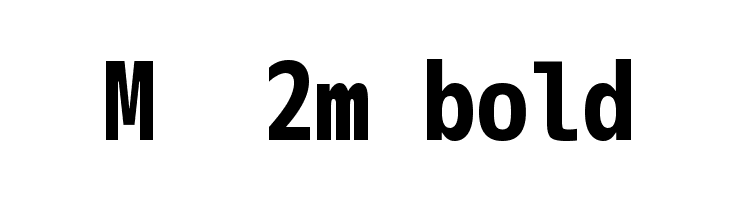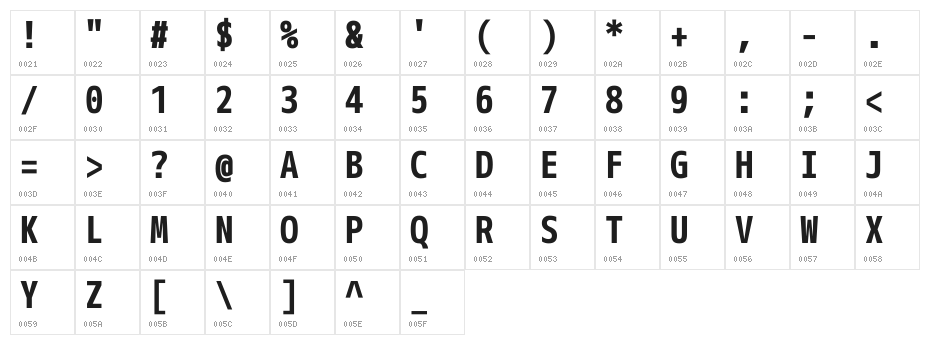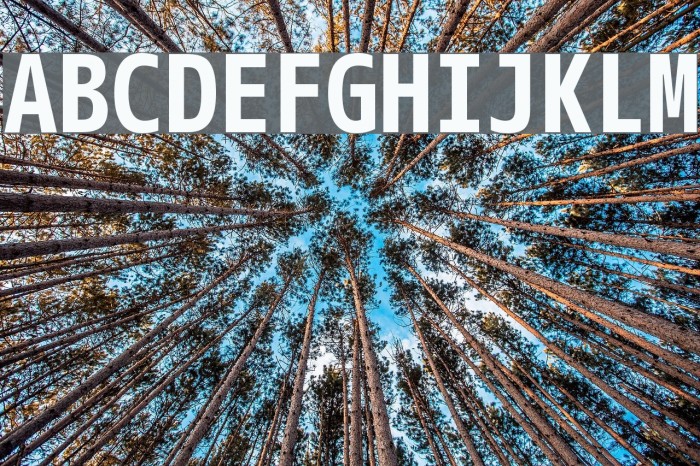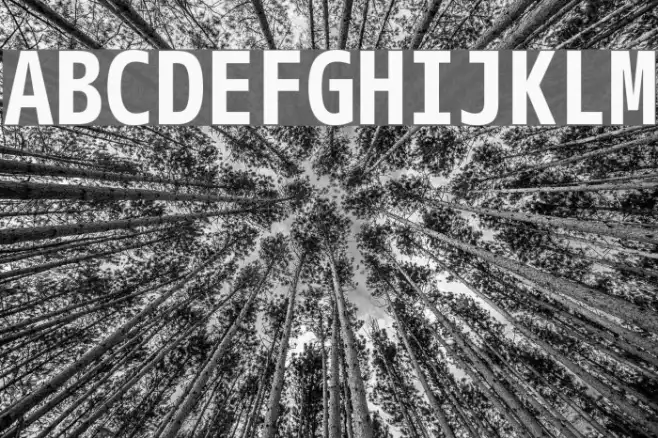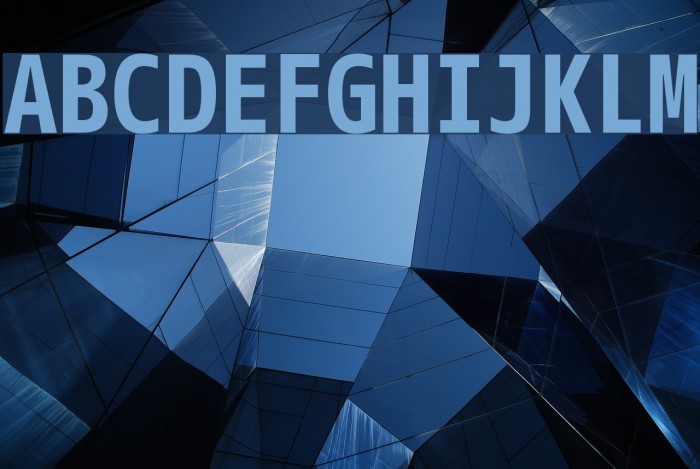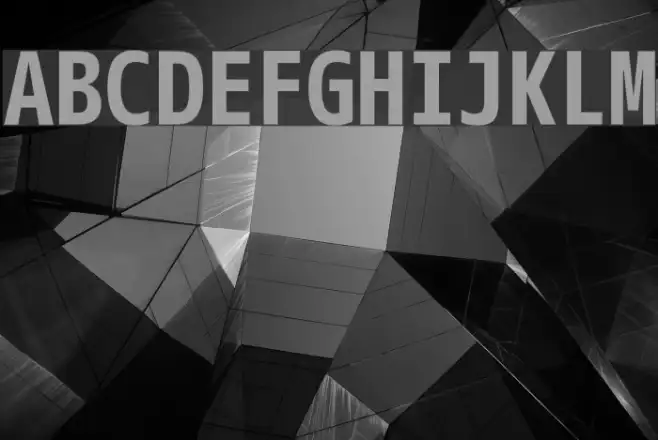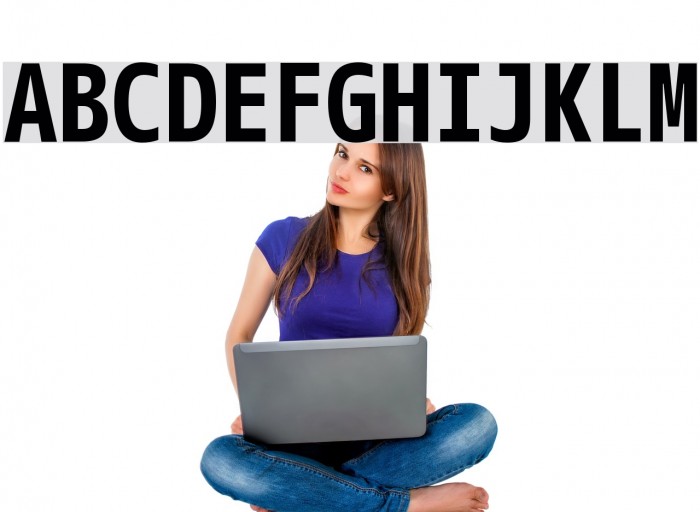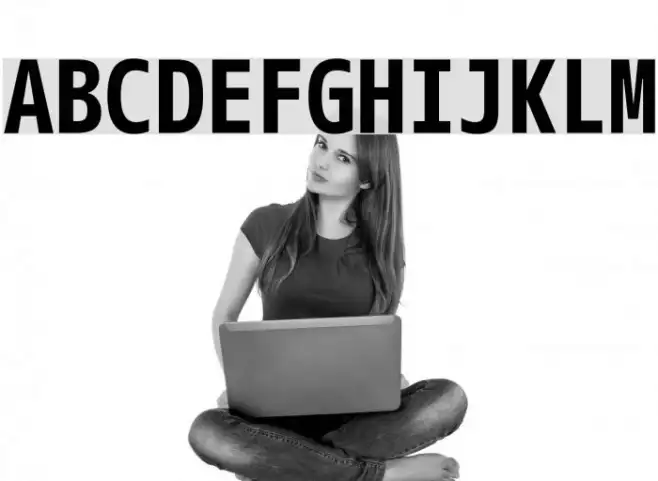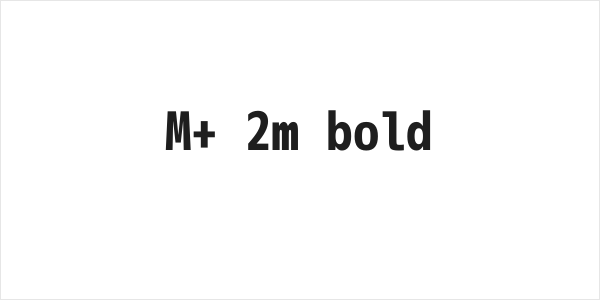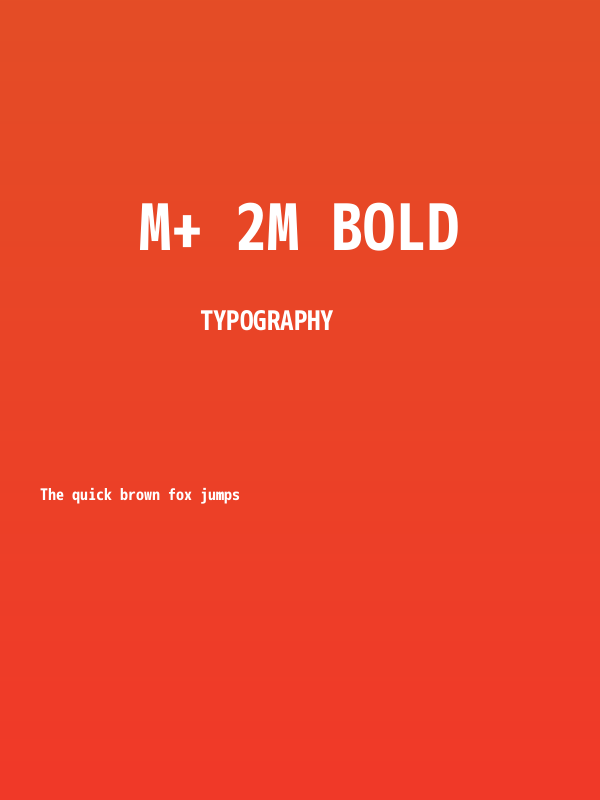
M+ 2m bold Font
M+ 2m bold Description
This font features a bold and assertive style with clean, straight lines and a modern aesthetic. The uppercase and lowercase letters are well-proportioned, offering a strong visual impact. The numerals are consistent with the overall boldness, providing clarity and emphasis. Special characters are designed to match the robust style, making them easily distinguishable. The font's design is versatile, suitable for both digital and print media, ensuring readability and a contemporary look.
| Proposed Projects | Ideal for branding, headlines, posters, and digital media where a strong, modern presence is needed. |